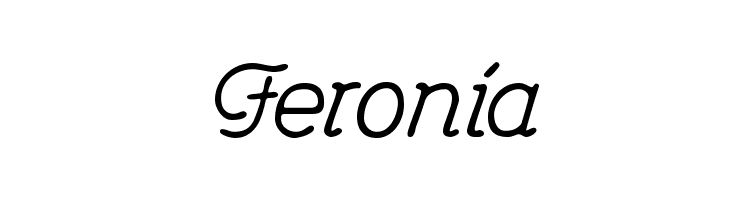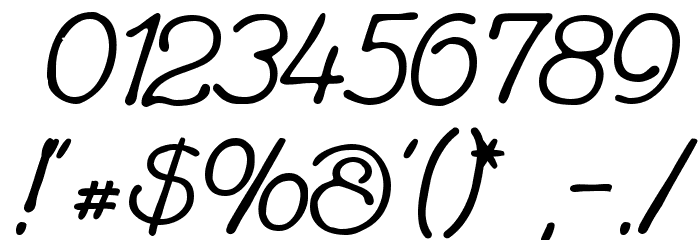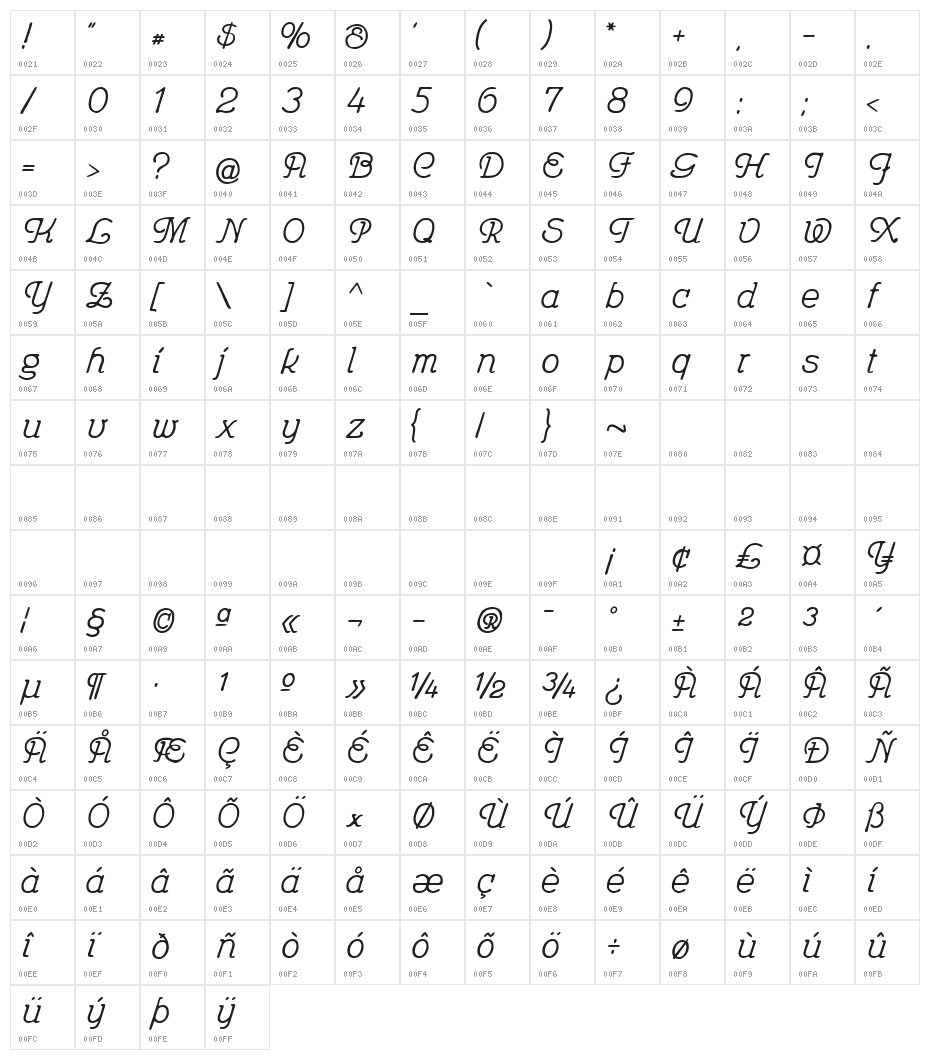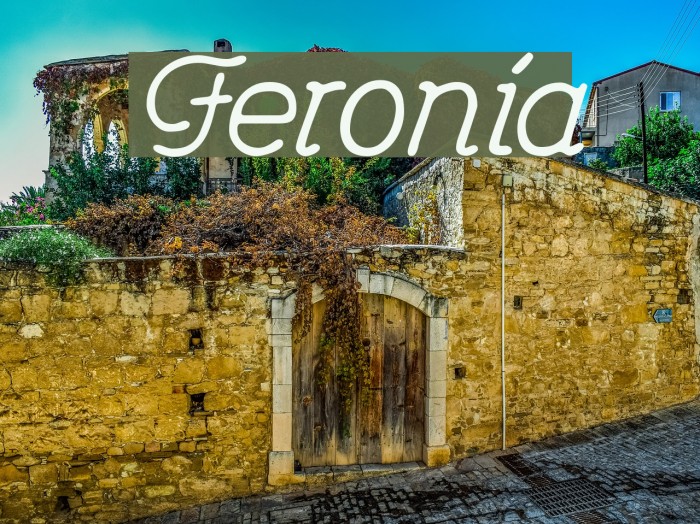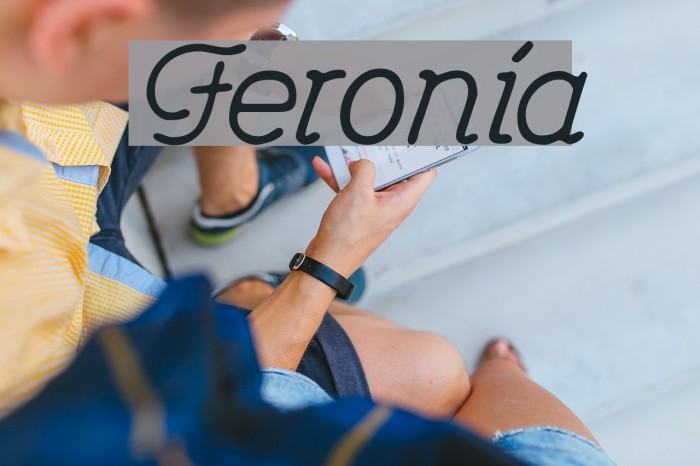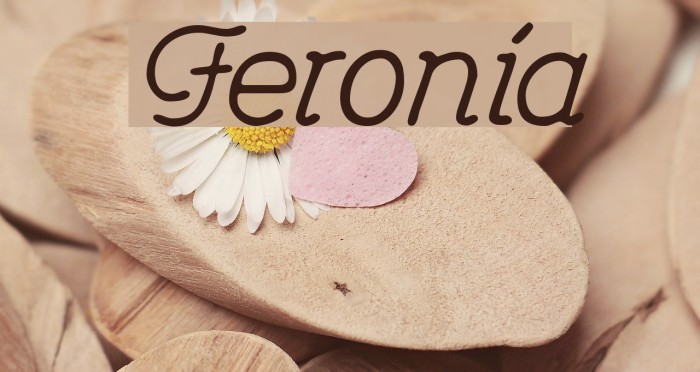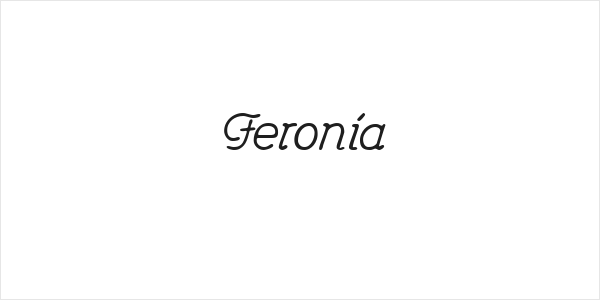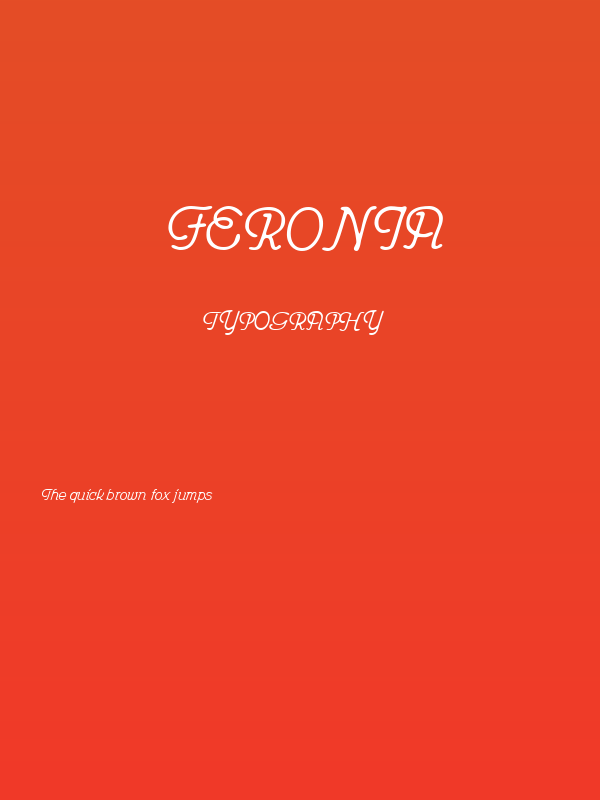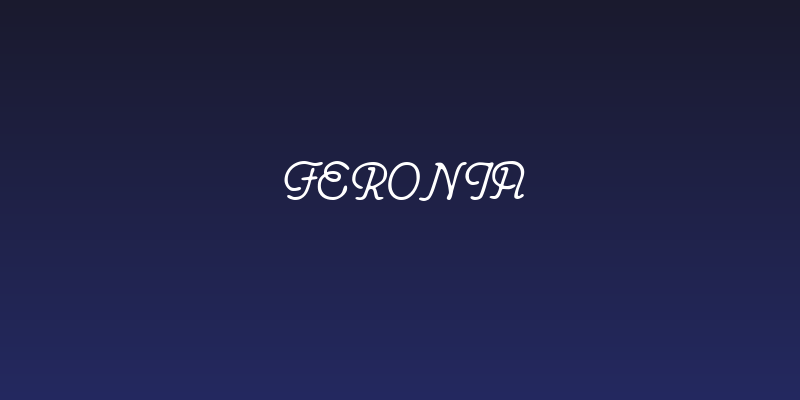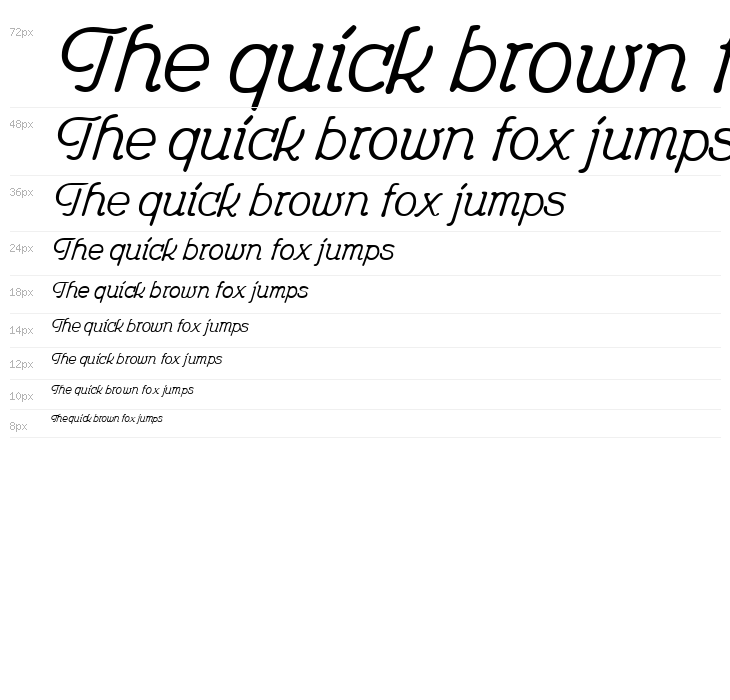
Feronia Font
Feronia Description
This font exhibits a classic and elegant script style, characterized by its flowing and connected letterforms. The uppercase letters are ornate with subtle flourishes, while the lowercase letters maintain a smooth and consistent flow, enhancing readability. The numerals are designed with a slight slant, maintaining the overall cursive aesthetic. Special characters are integrated seamlessly, complementing the script style. The font's design is reminiscent of traditional calligraphy, making it suitable for formal and decorative applications.